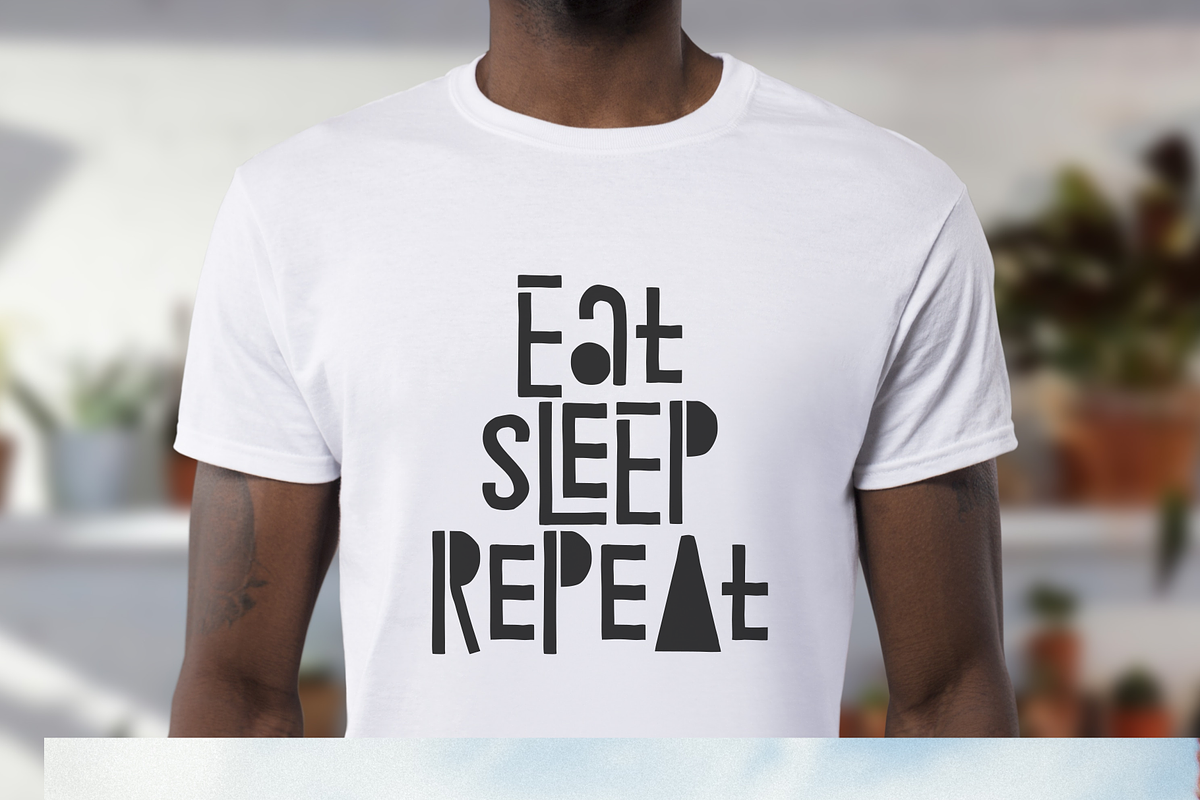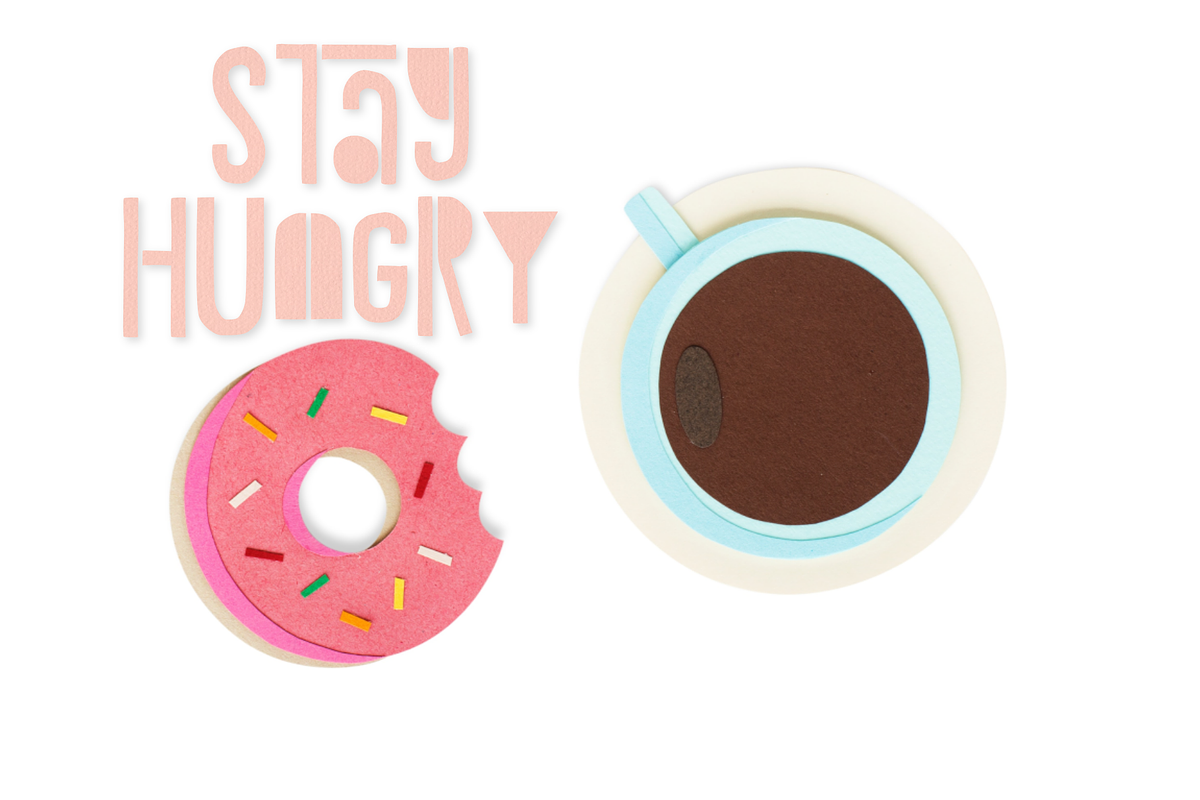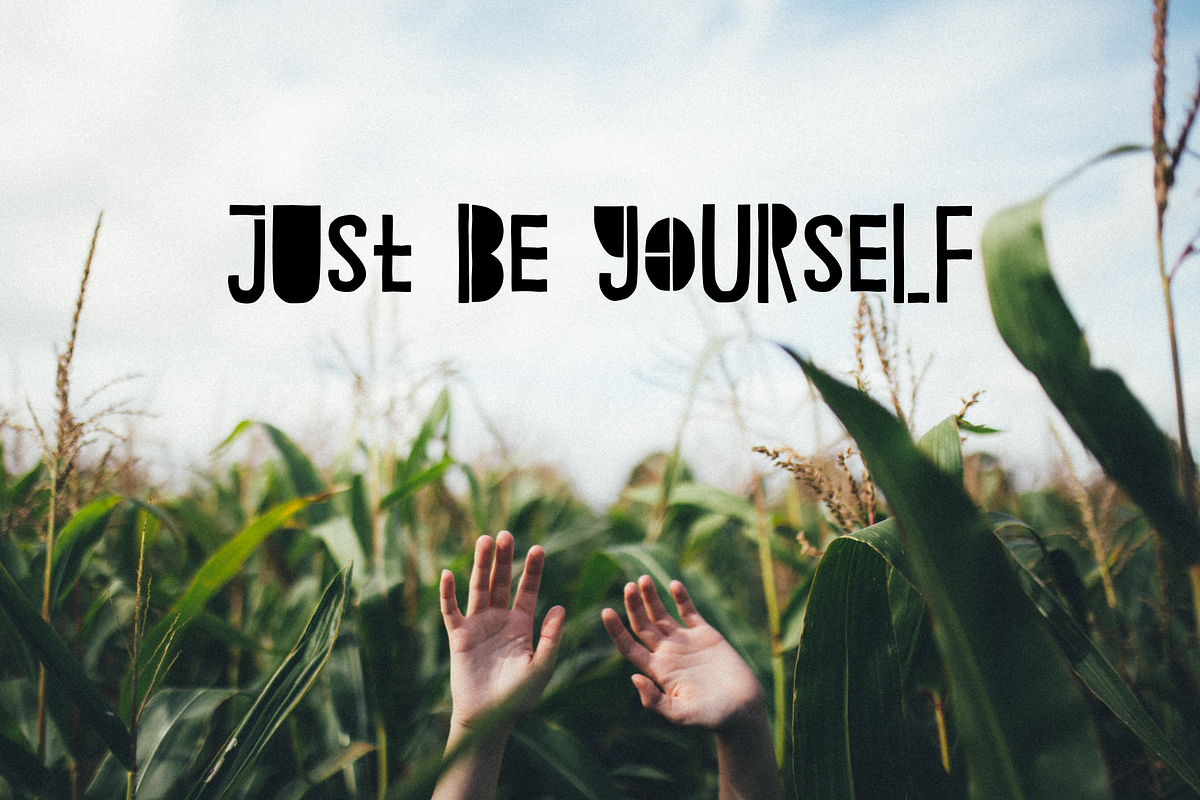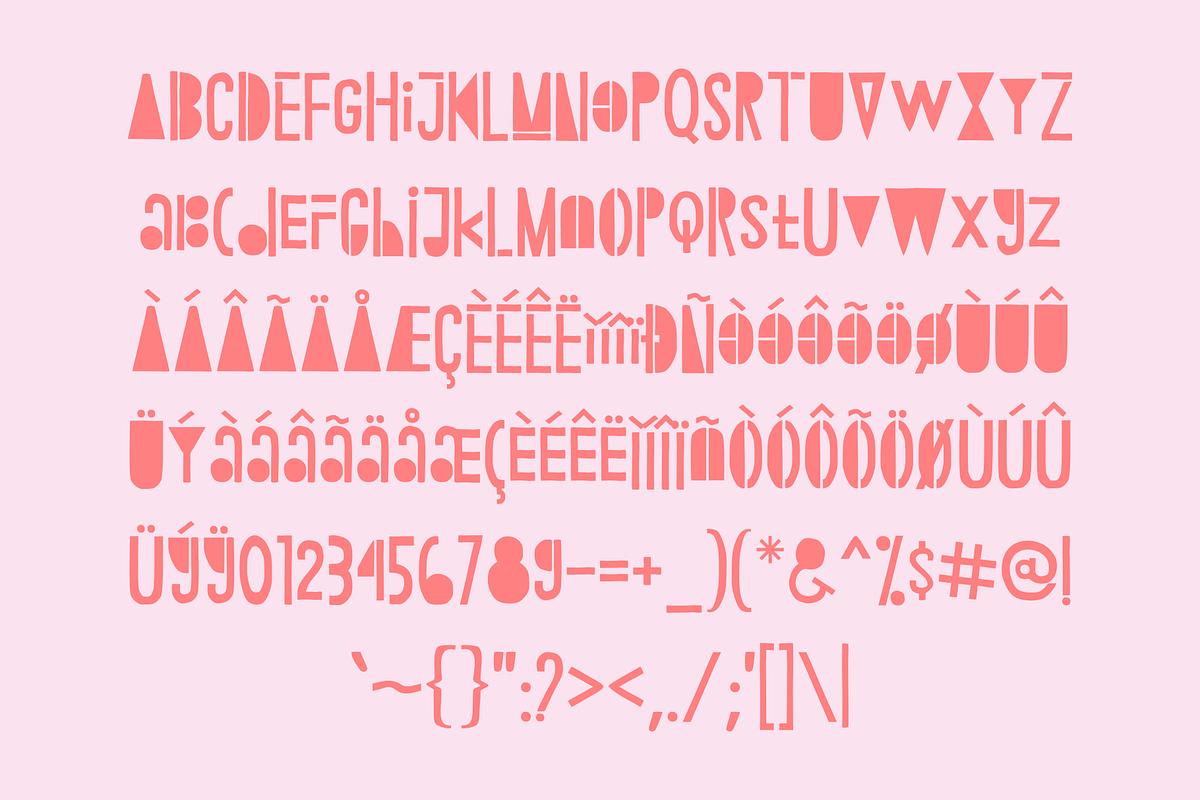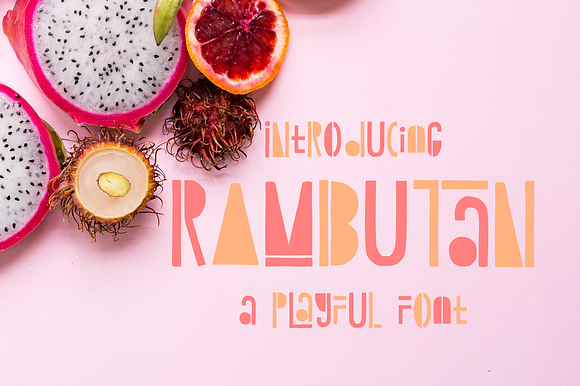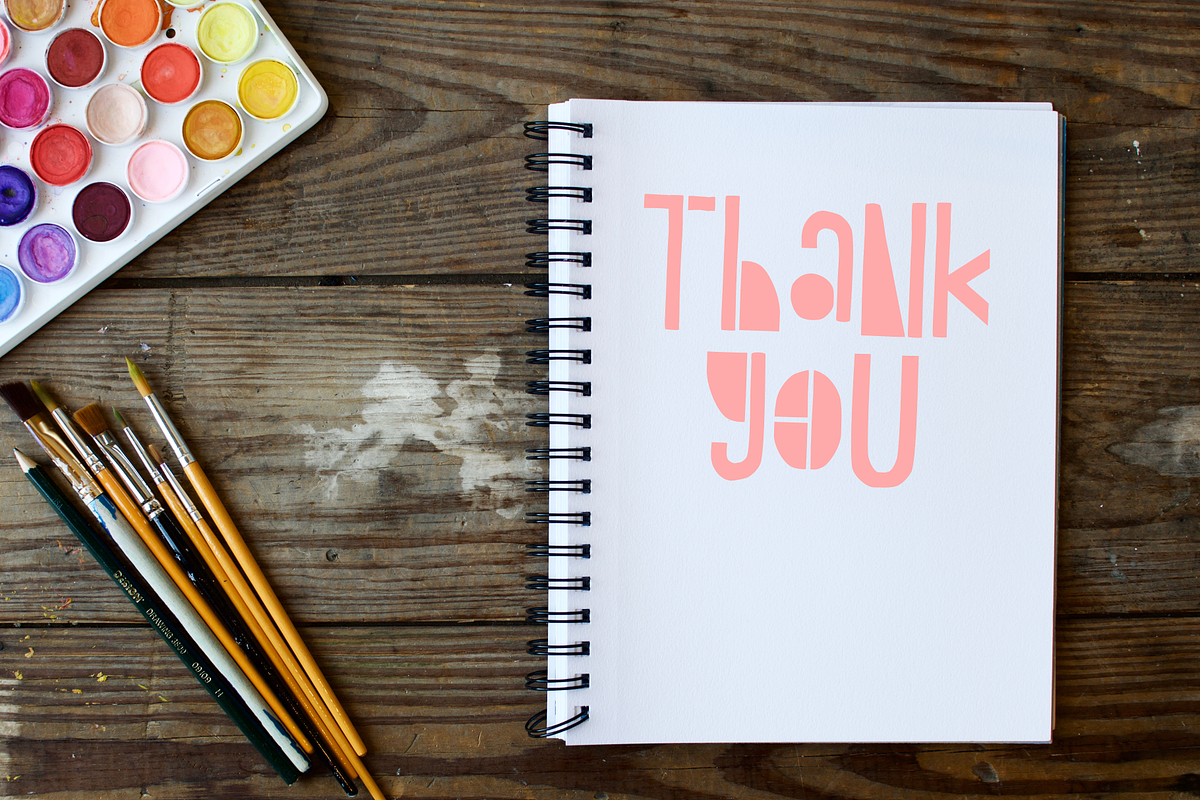
Rambutan Playful Font
The Rambutan is a playful font. Mix and match the uppercase and lowercase letters to create an unique design, every time you use it. The Rambutan is perfect for logos, quotes, clothing, book covers and more!
- Mix and match the uppercase and lowercase letters to create an unique design, every time you use it.
Rambutan Playful Font by zuzulgo fits naturally into Branding, posters, packaging, typography.